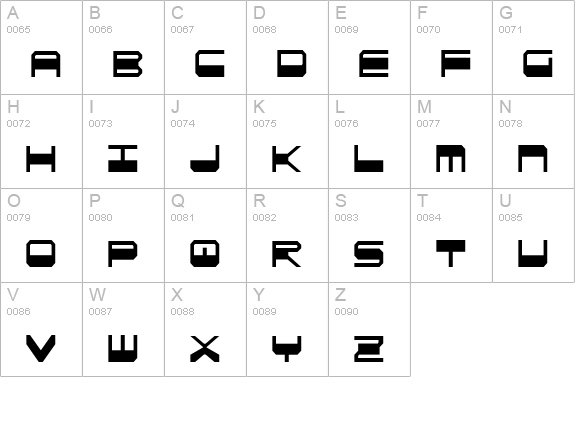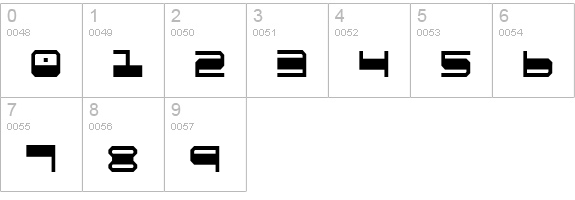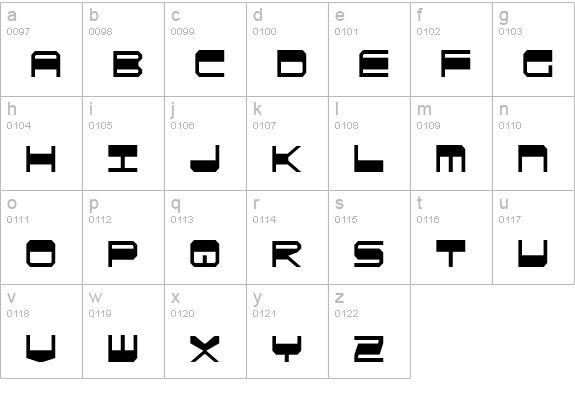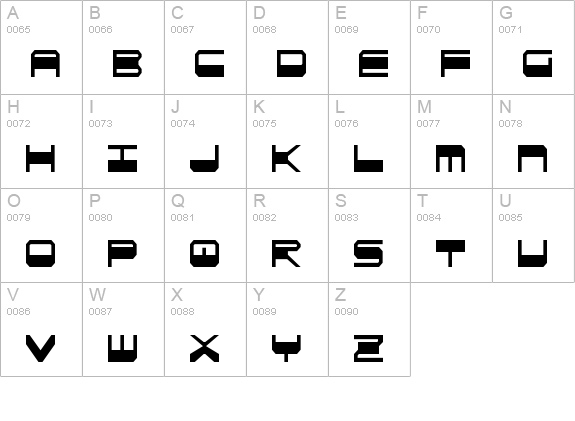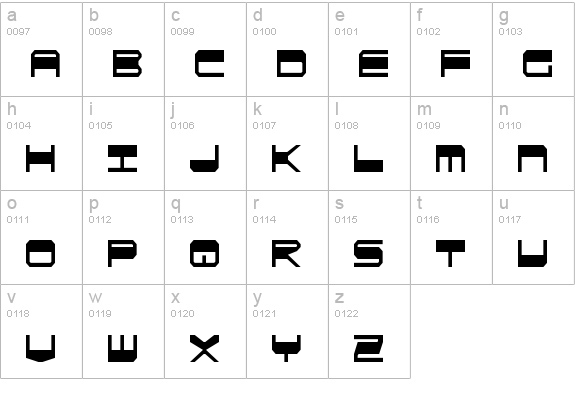
QuickGear Condensed is a distinctive, condensed-width variant in the QuickGear typeface family \xE2\x80\x94 well suited to design and typography projects.
QuickGear Condensed is a sleek and modern font that exudes elegance and sophistication. Designed with precision and attention to detail, this condensed typeface is perfect for projects that require a compact and stylish look. Its clean lines and subtle curves make it easy to read and visually pleasing. Featuring a wide range of characters, including uppercase and lowercase letters, numerals, punctuation marks, and special symbols, QuickGear Condensed offers versatility and flexibility for various design purposes. Whether you're creating professional documents, eye-catching advertisements, or stunning graphics, this font has got you covered. But what sets QuickGear Condensed apart from other fonts is its incredible price tag – it's completely free! That's right, you can download this amazing font for absolutely no cost at FontsMarket.com. We believe that great design should be accessible to everyone, and QuickGear Condensed is a testament to that belief. So why wait? Head over to FontsMarket.com and grab your free download of QuickGear Condensed today. Elevate your designs with this exceptional font and watch as it effortlessly adds a touch of sophistication and style to your projects. Don't miss out on this incredible opportunity to enhance your work with a font that is both visually stunning and freely available.